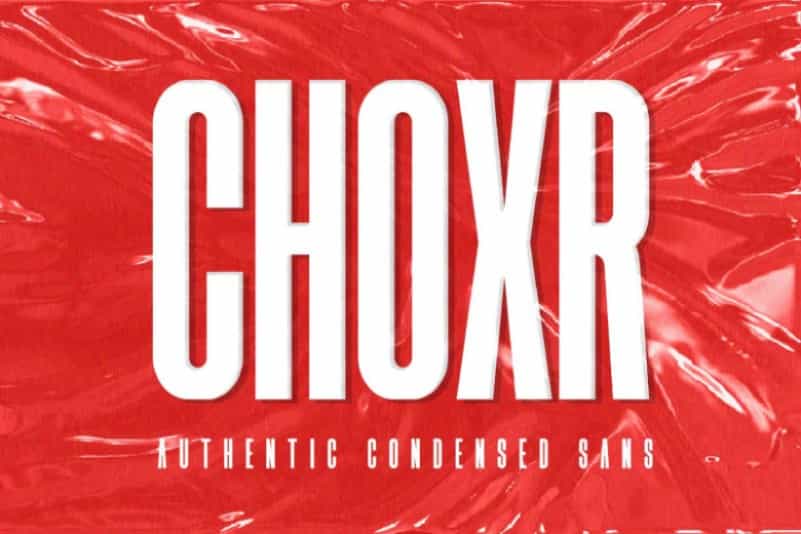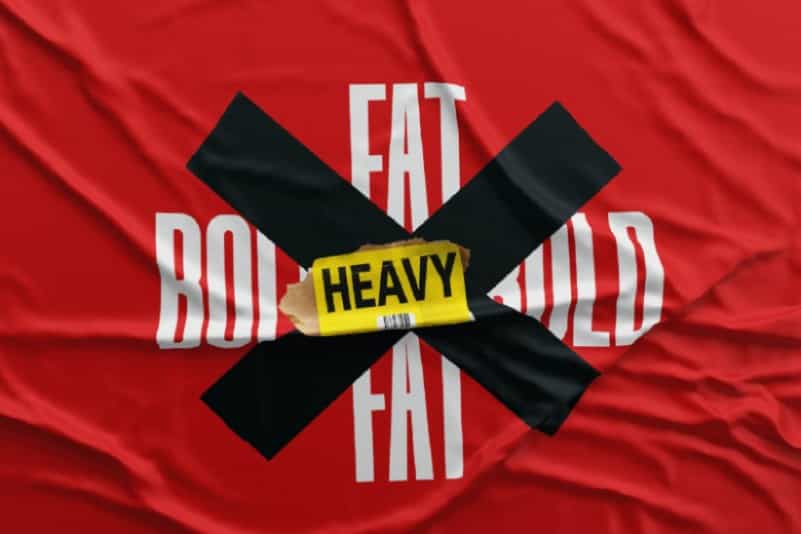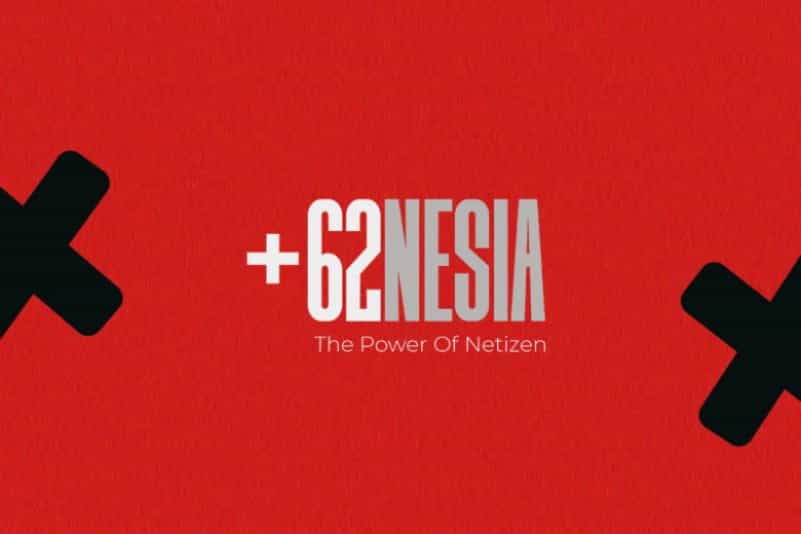
Choxr a completely new hand made Sans Serif typeface with one of a kind style and halfway through the two styles of the letters. It is created and sent through Almarkhatype Studio. The font derives itself from logos of shoes and Brand logos that have special characteristics.